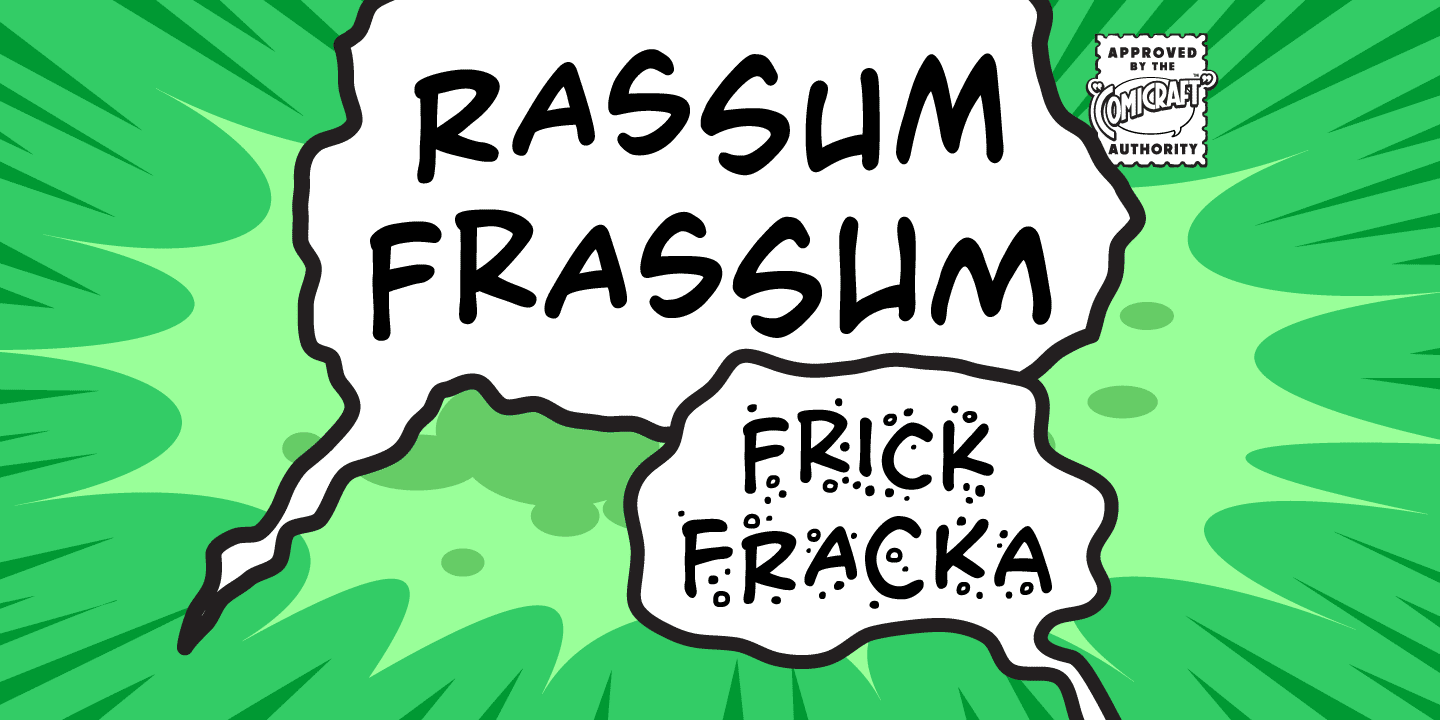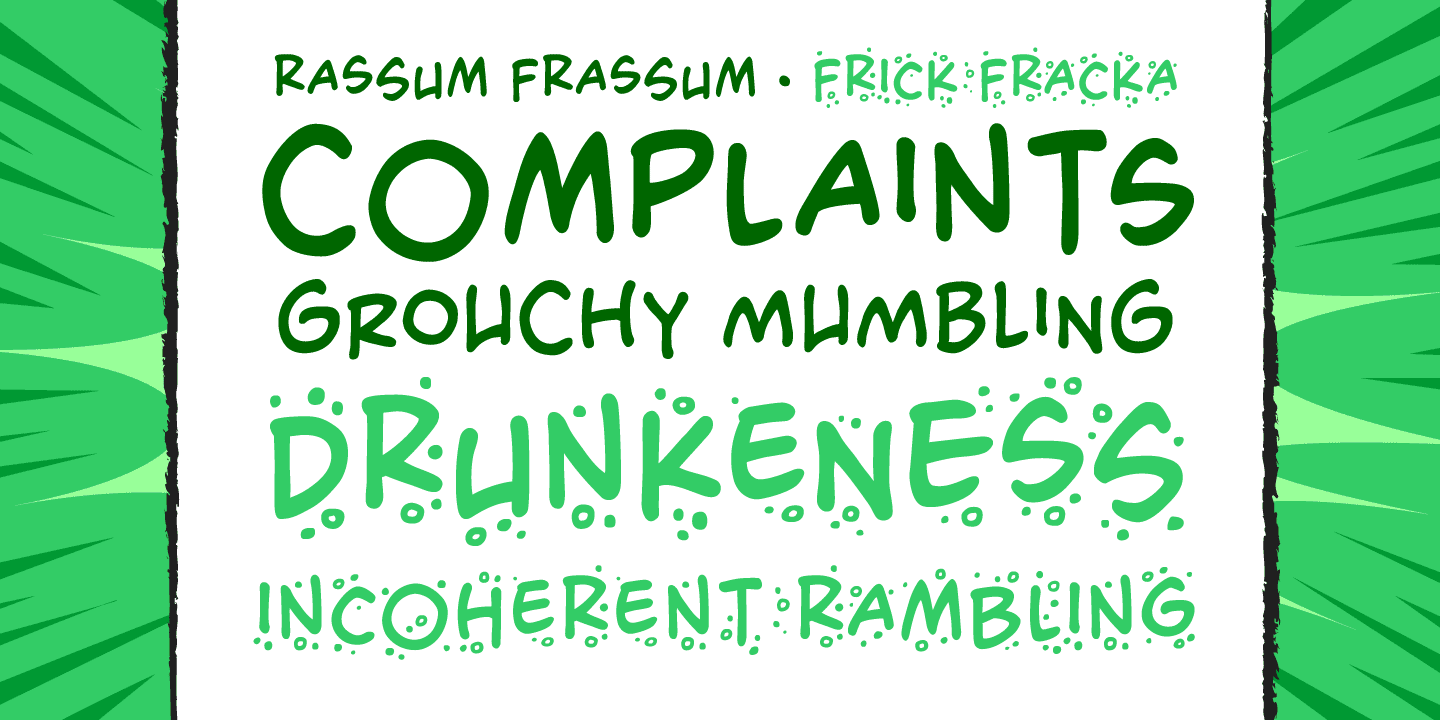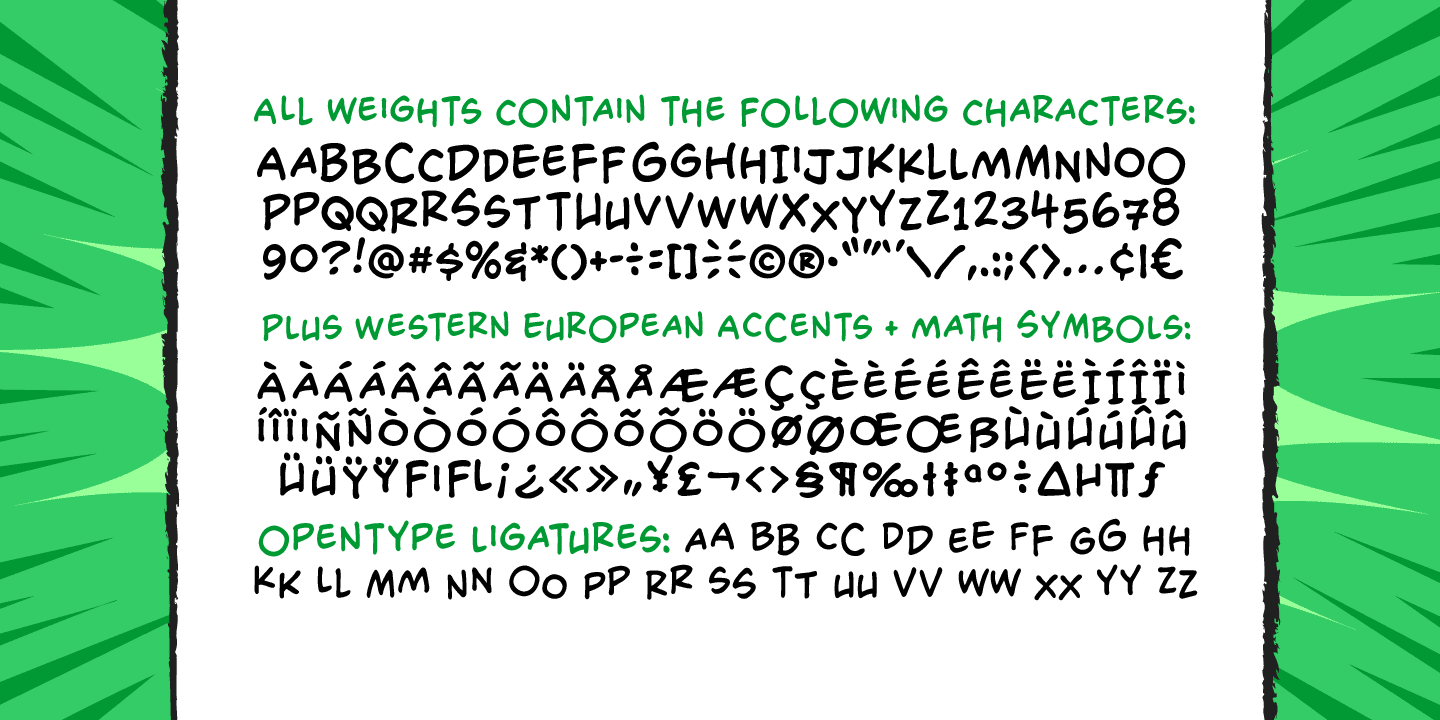
About the Rassum Frassum Font
About Rassum Frassum Font Family In the immortal words of Homer Simpson, “It’s easy to complain… and so much FUN, too! Woo-HOO!” Now your characters can grumble, mumble and mutter in barely audible tones as they dredge up some bit of misery from their lives, unleash a rambling river of criticism and complaints about the state of their health, or the government, garbling as much graphic detail as time and your imagination will allow!
Or perhaps your creations are issuing drunken slurs as they wake up outside their own fricka-frackin’ houses cuddling wheelie bins, covered in glitter, wearing a shiny hat and budgie smugglers over their jeans while holding the reins to a miniature horse. So moan, groan, gossip incoherently or swear under your whiskey-soaked breath like a trooper… courtesy of those Rassum Frassum font lovers at Comicraft. >Hic!< Designers: John RoshellPublisher: ComicraftFoundry: ComicraftDesign Owner: ComicraftMyFonts debut: Feb 12, 2012 Rassum Frassum